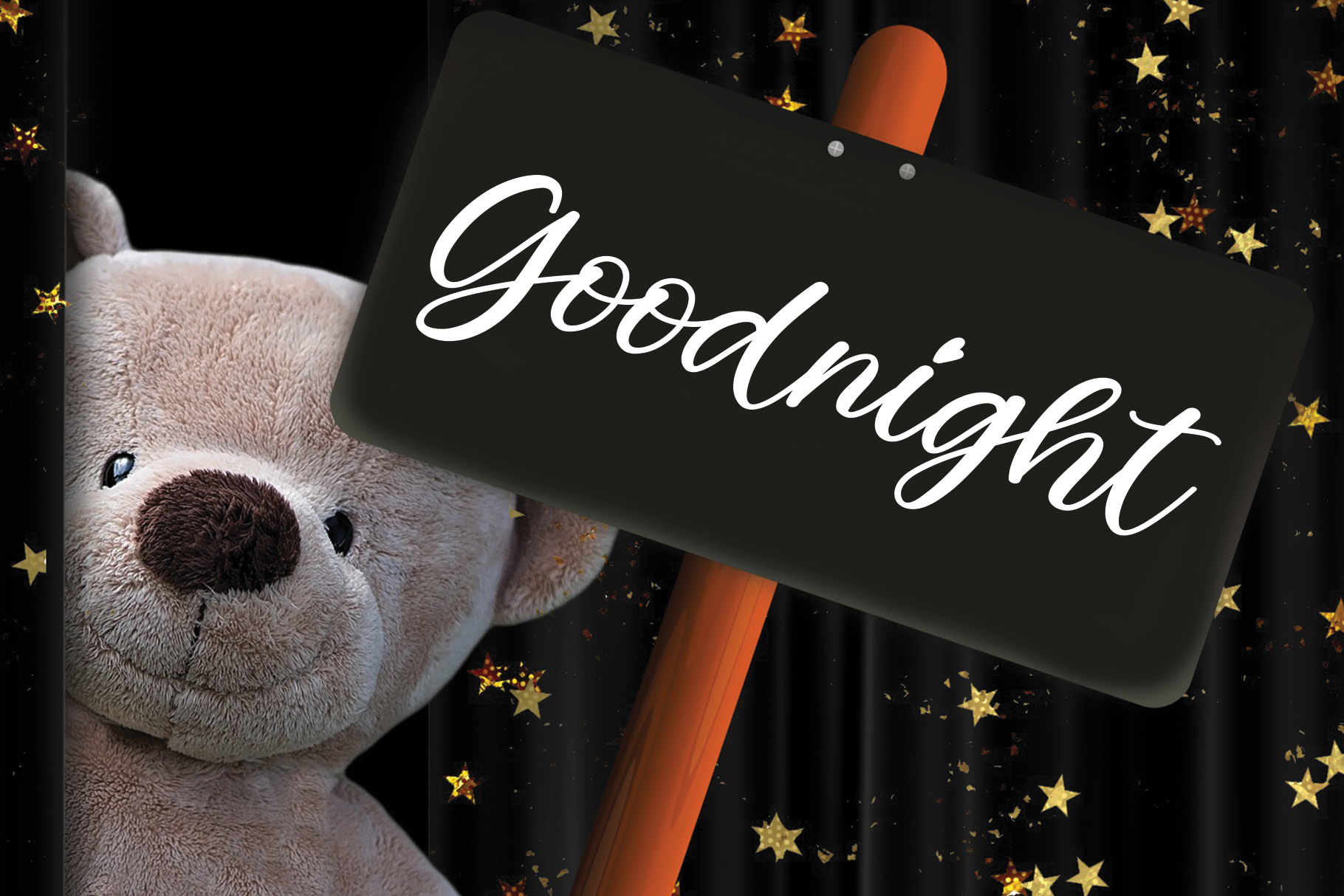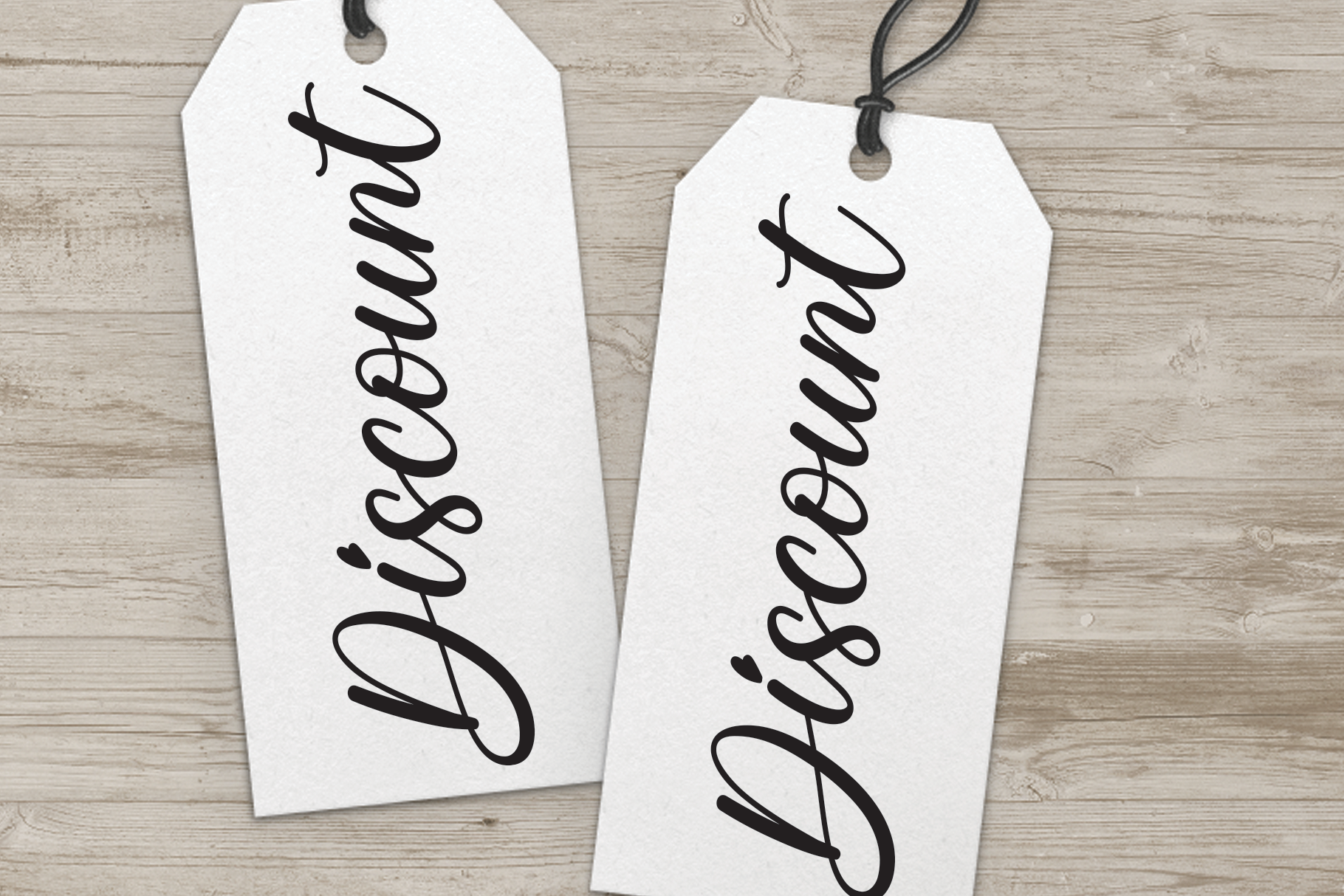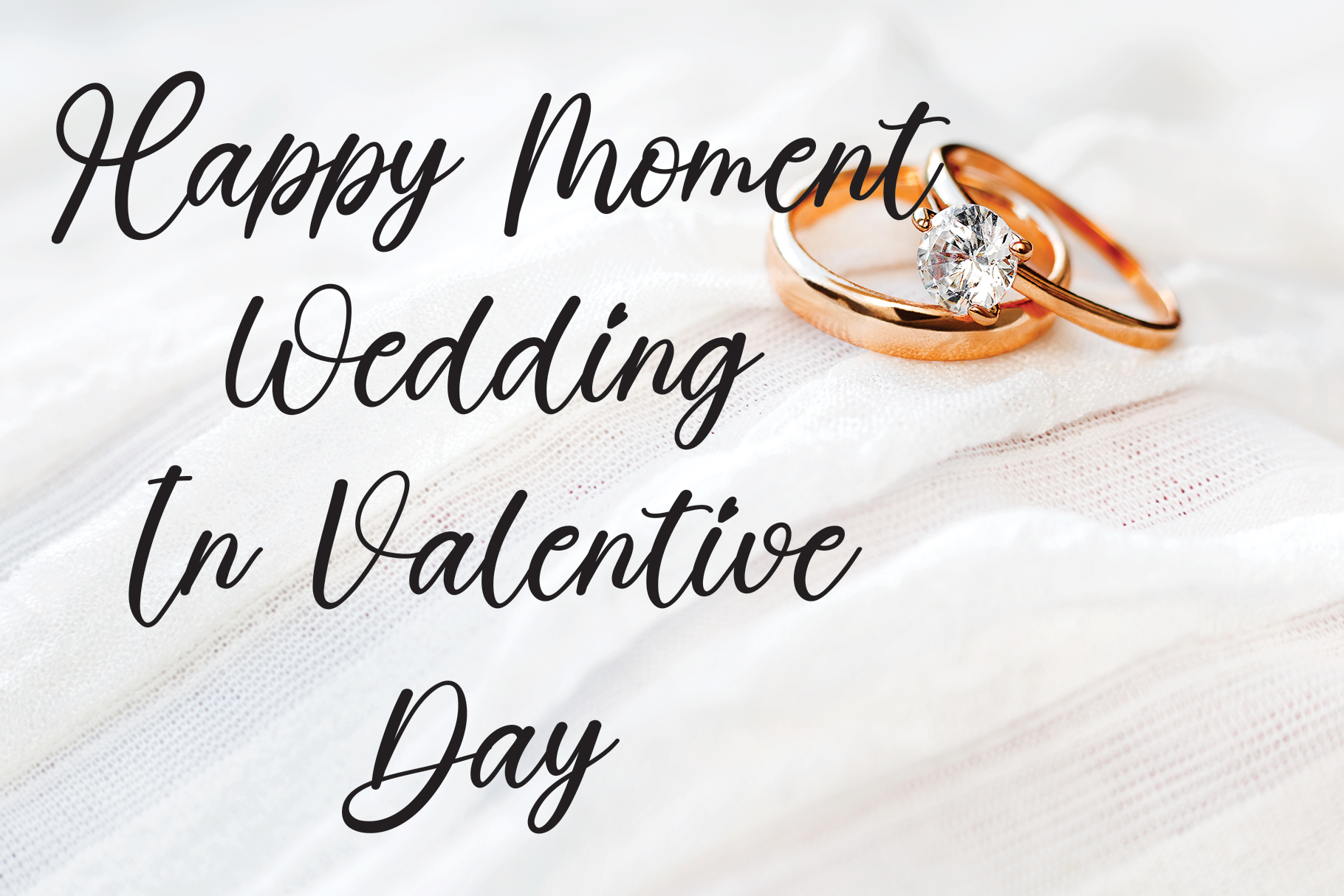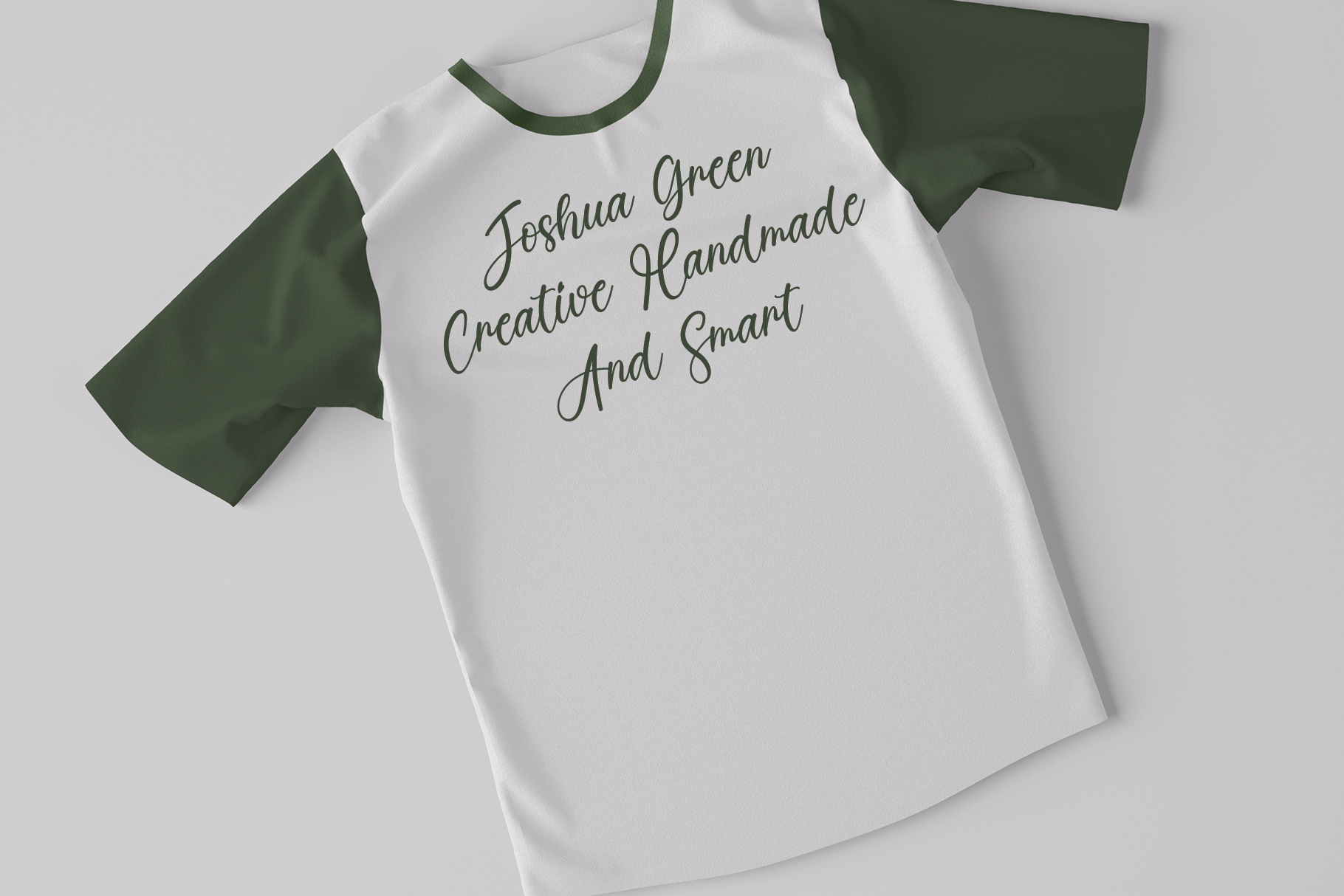
Dinner Font
Dinner Script Font
This is a romantic and sweet calligraphy typeface with characters that dance along the baseline. It has a casual, yet elegant touch. The only limit is your imagination!
the latest style letters are perfect for wall displays, wedding invitations, social media post logos, advertisements, product packaging, product designs, labels, photography, watermarks, invitations, stationery, and any project that requires taste handwriting.